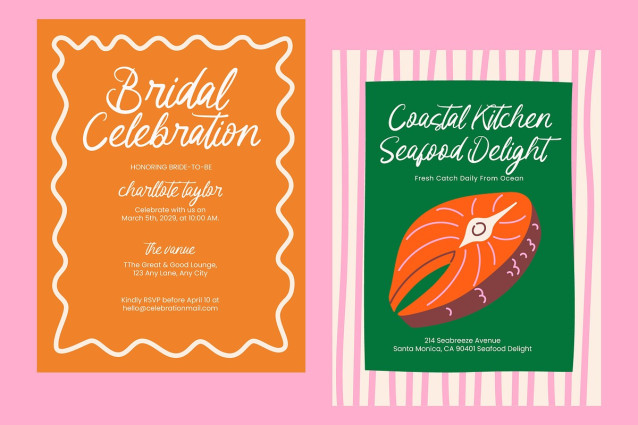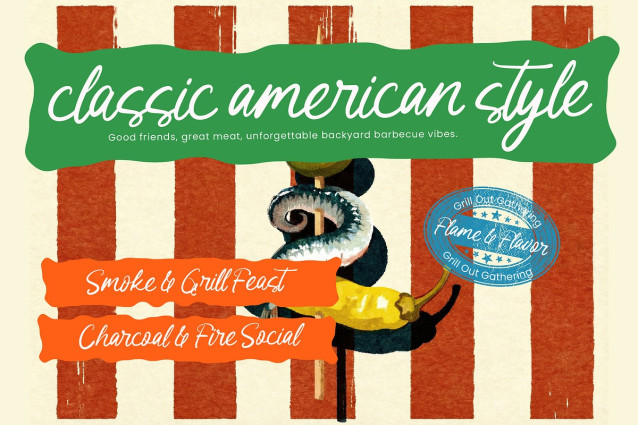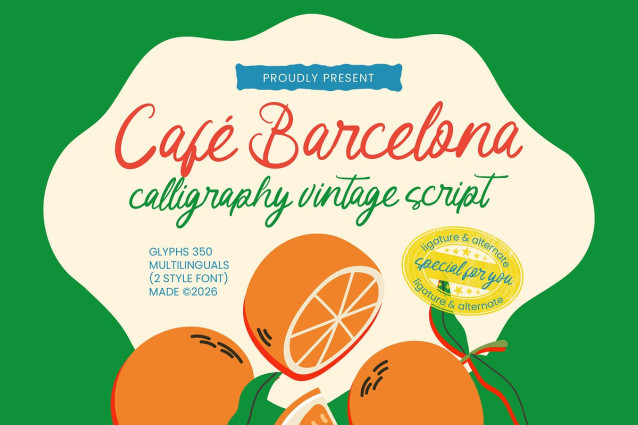
Cafe Barcelona Script Font
Cafe Barcelona Script Font is a vintage script font inspired by classic European café culture and timeless retro charm. With its smooth, flowing strokes and elegant curves, this font brings warmth and nostalgia to your designs. Perfect for branding, packaging, menus, signage, logos, and posters, Cafe Barcelona adds a handcrafted, authentic feel that captures the spirit of old-world sophistication and cozy café vibes.